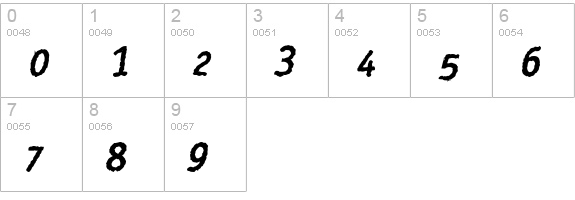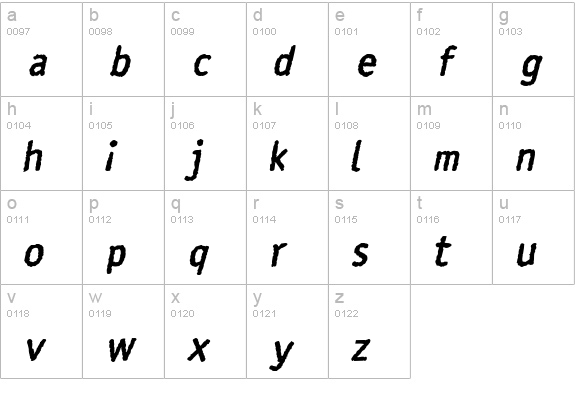
Rosango BoldItalic Font Details
Rosango BoldItalic font exudes a perfect blend of elegance and modernity, making it a versatile choice for a wide range of design projects. Its bold yet graceful strokes add a touch of sophistication to any text, making it stand out effortlessly. The italicized style brings a dynamic flair to the characters, creating a visually appealing and unique look. And the best part? Rosango BoldItalic font is available for free download at FontsMarket.com. This means you can easily access this stunning typeface to elevate your designs without any cost. Don't miss out on the opportunity to enhance your projects with the striking beauty of Rosango BoldItalic font. Download it now and let your creativity soar!